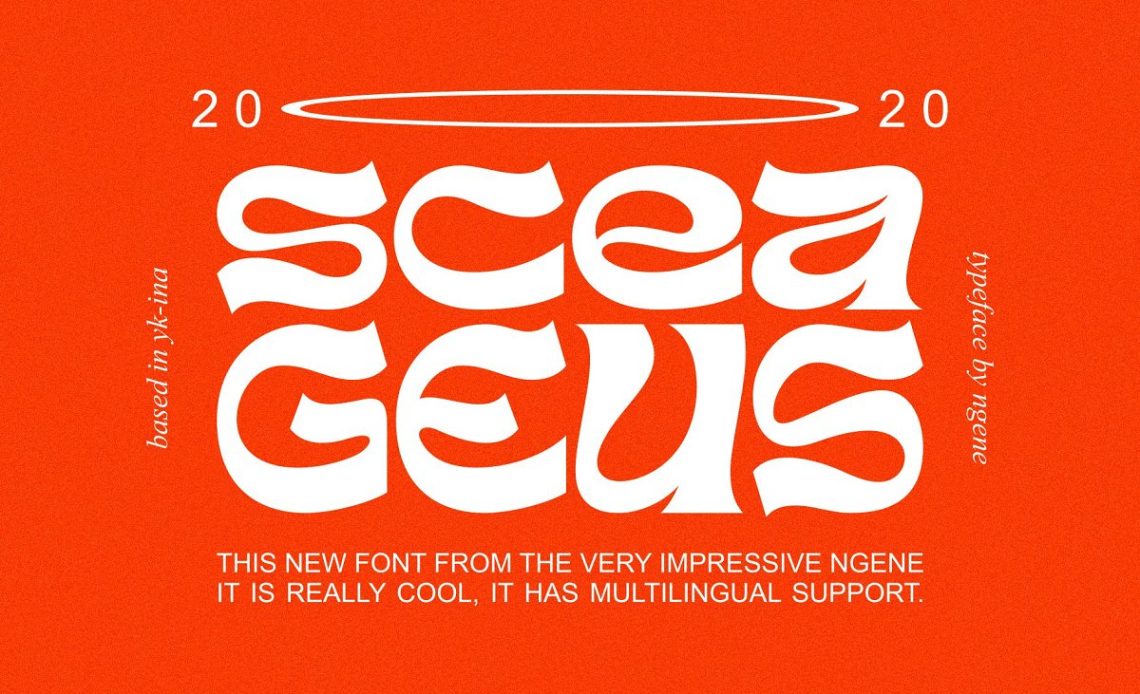
Are you tired of using boring fonts that don't bring life to your designs? Look no further than Sceageus Typeface! With its modern and contemporary touch, this font is perfect for a variety of design projects, including logos, magazines, web design, posters, and more.
But what really sets Sceageus apart is its versatility. Not only does it work well for traditional design projects, but it's also great for clothing designs, labels, and even MLA style papers. That's right, Sceageus is the perfect font for all your academic needs.
And if you're worried about language barriers, don't be! Sceageus supports multilingualism, making it accessible for all users.
Don't settle for ordinary fonts when you can elevate your designs with Sceageus Typeface. Try it out today and see the difference for yourself.